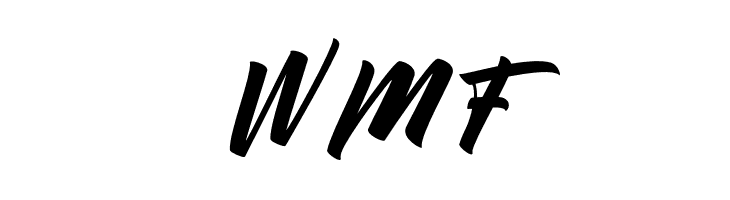
A bold, expressive script font with fluid, interconnected strokes.
A bold, dynamic script font with fluid, connected letterforms and a modern, elegant style.